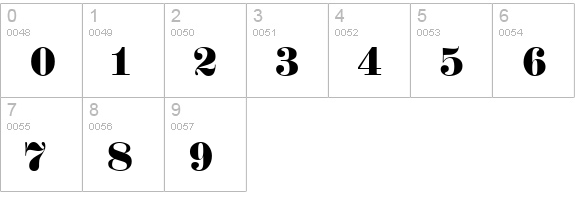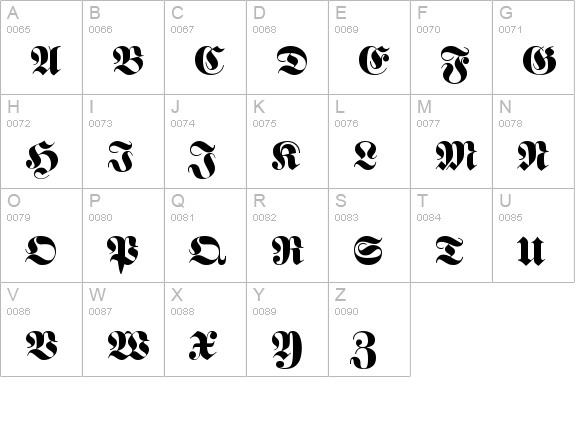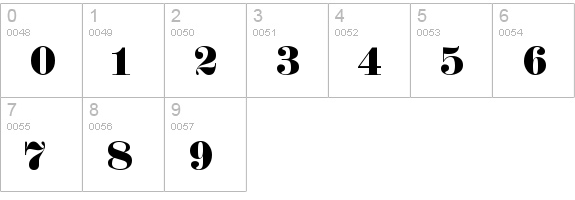
Barron Font Details
Barron font is a stunning typeface that exudes elegance and sophistication. With its sleek lines and stylish curves, Barron font is perfect for adding a touch of class to any design project. This versatile font can be used for a wide range of applications, from branding to editorial design. The best part? Barron font is completely free to download at FontsMarket.com. Now you can elevate your designs with this premium font without breaking the bank. Don't miss out on the opportunity to enhance your projects with the timeless beauty of Barron font - download it for free today!